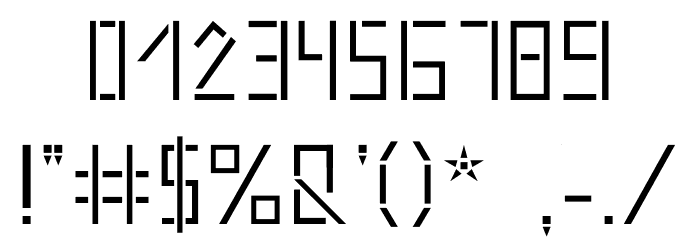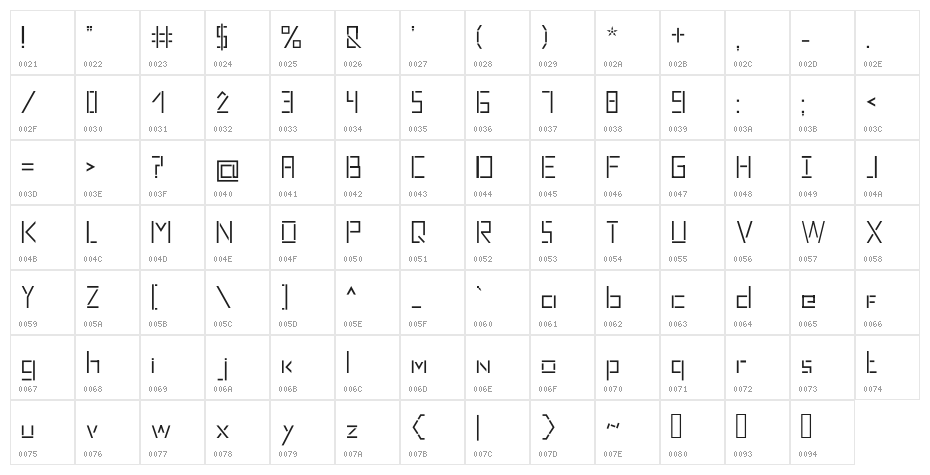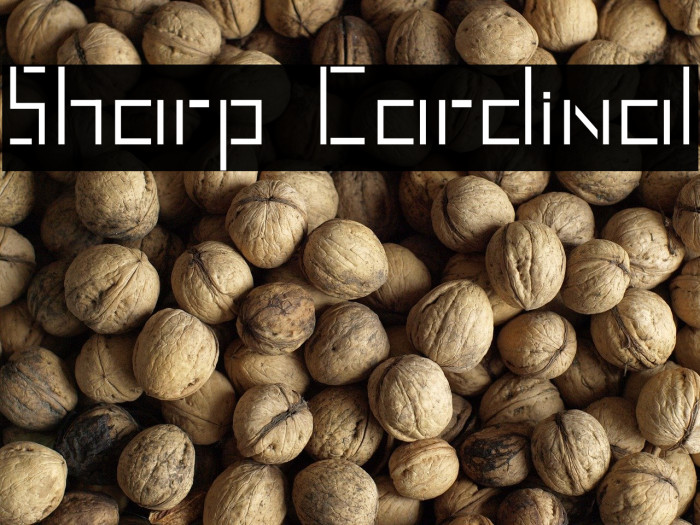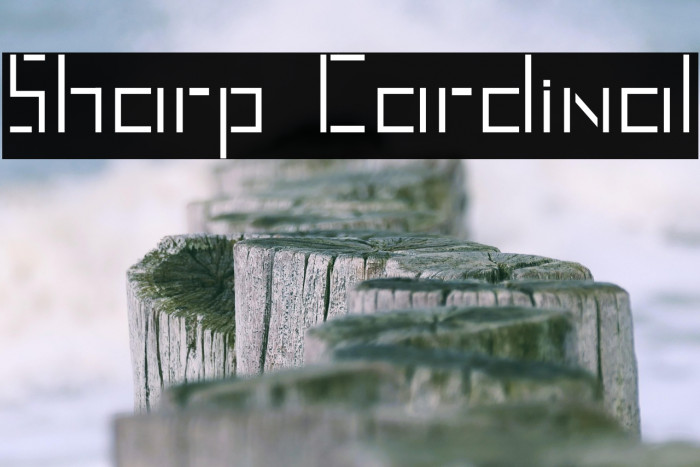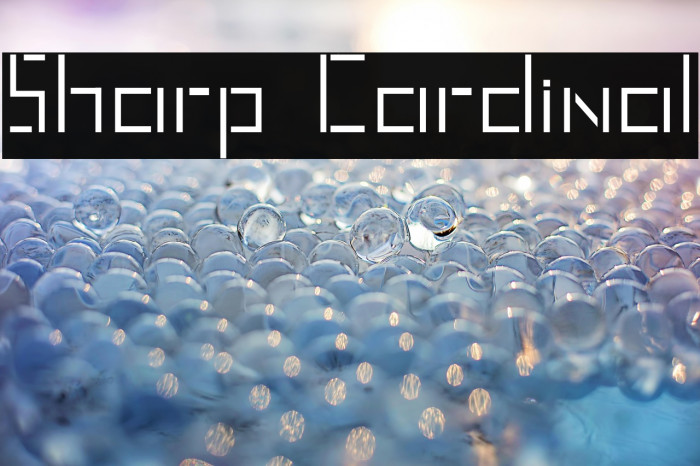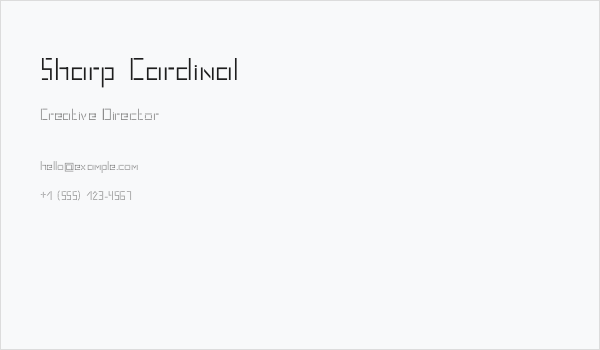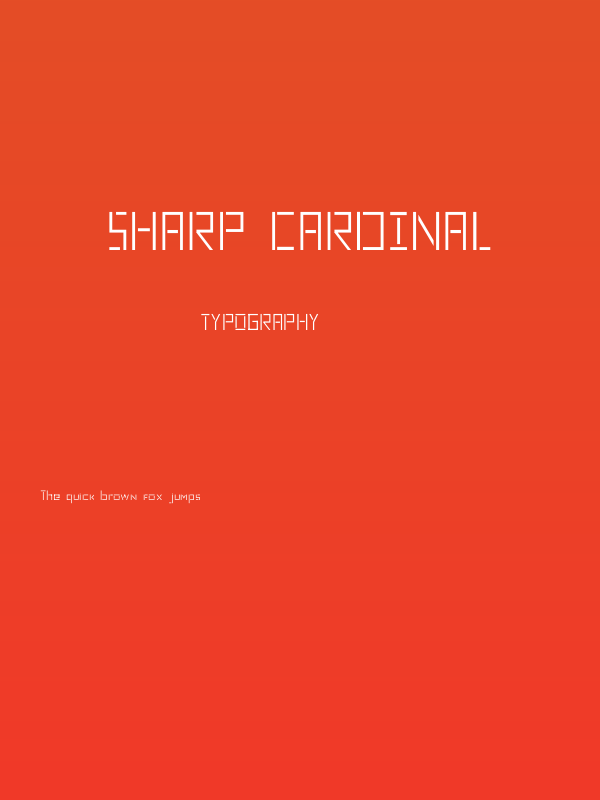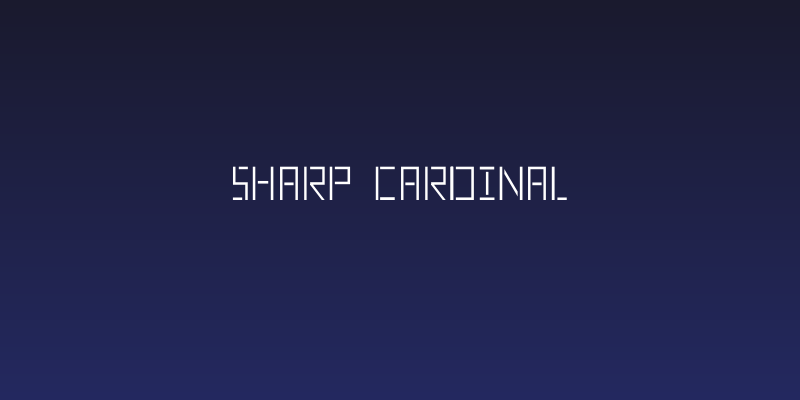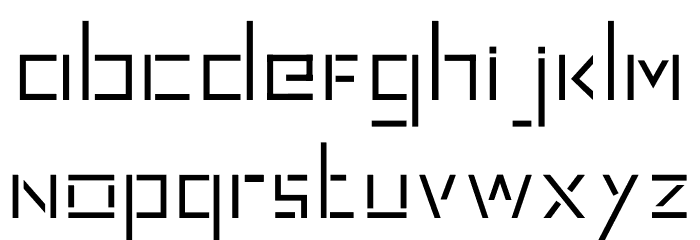
Sharp Cardinal Font
Sharp Cardinal Description
This font features a geometric and angular design, characterized by sharp edges and a modern, futuristic aesthetic. The uppercase and lowercase letters maintain a consistent height, with straight lines and minimal curves, creating a uniform and structured appearance. The numerals and special characters follow the same design principles, ensuring a cohesive look across all glyphs. The font's unique style makes it stand out, with a distinct emphasis on symmetry and precision. Its clean and crisp lines make it suitable for projects that require a contemporary and edgy feel.
| Proposed Projects | Ideal for tech branding, modern posters, video game titles, and sci-fi themed designs. |